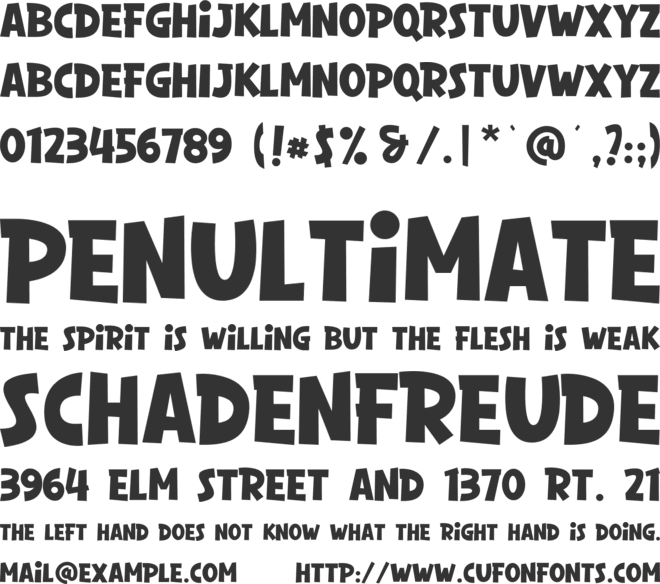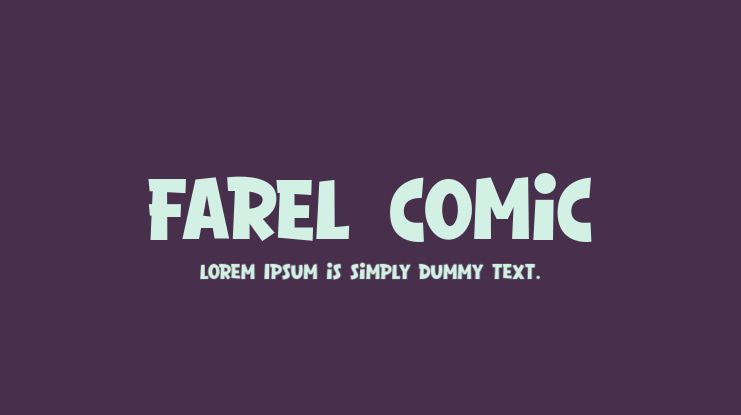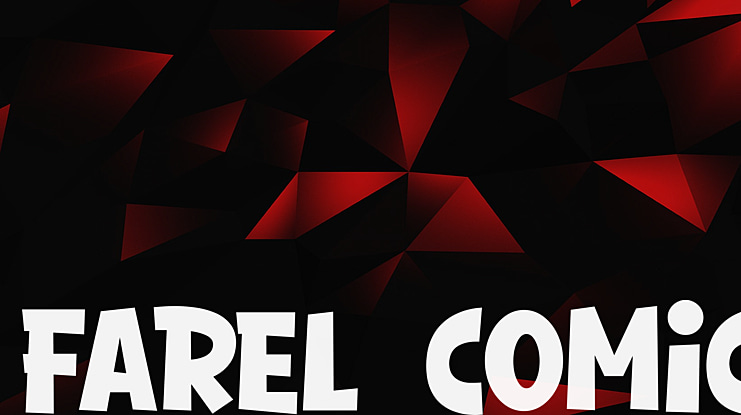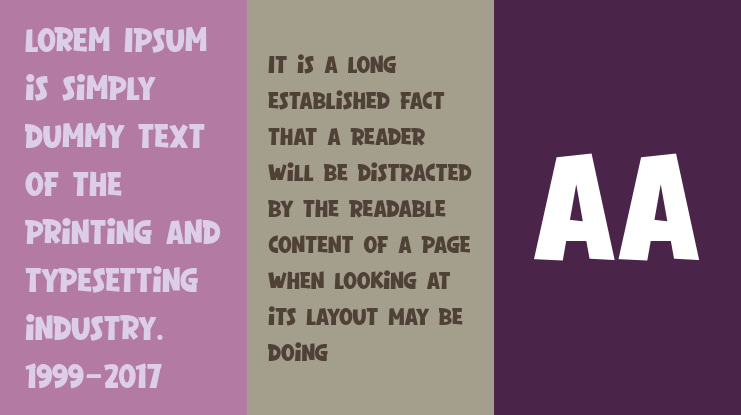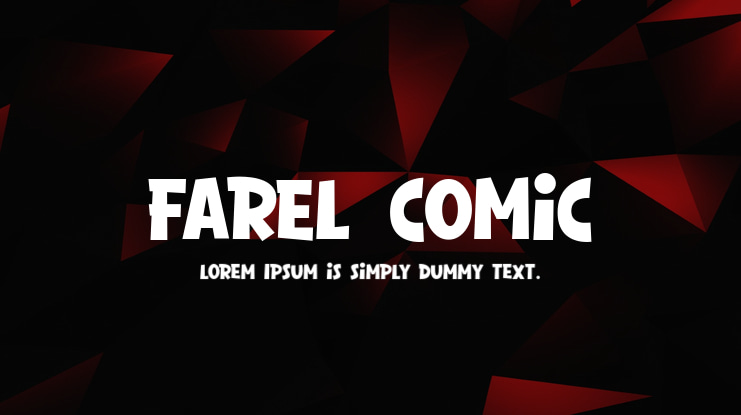
Farel Comic Font
Farel Comic is a cool and cartoon like display font. It embodies playfulness and authenticity, and is suitable for comic themed designs.